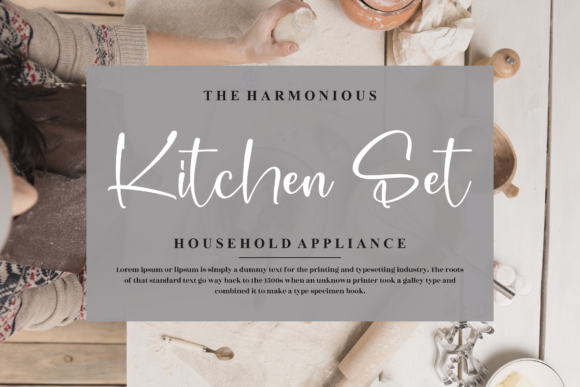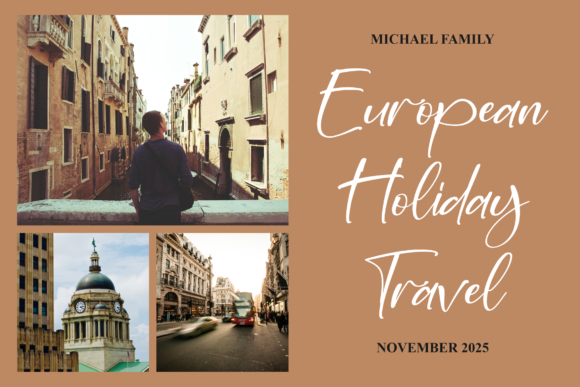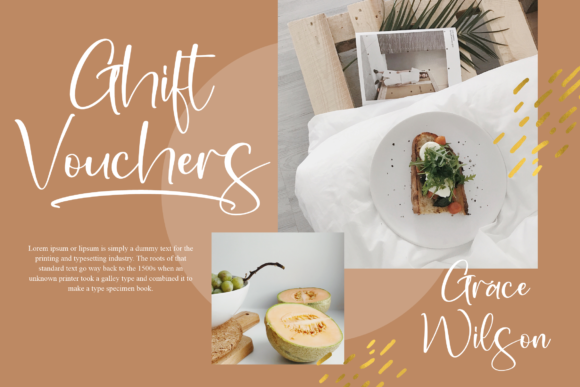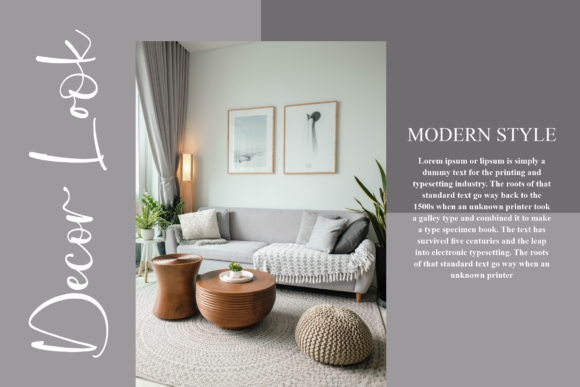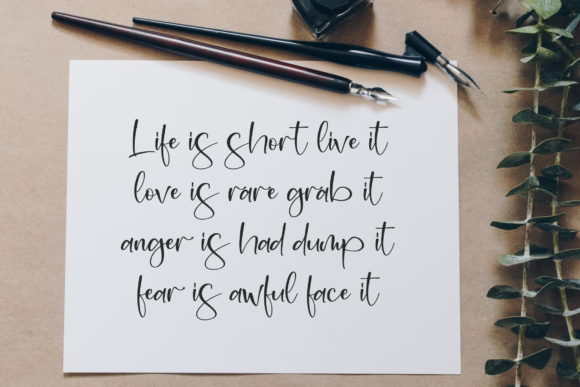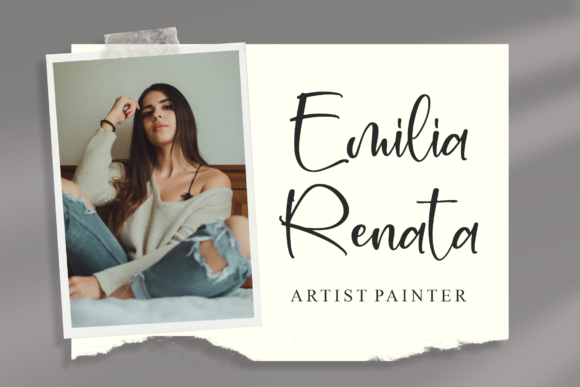
Introduction to Sacholla Font
Do you remember the thrill of stumbling upon the perfect font for your creative project? It’s that moment when all the pieces fall into place, and your design vision comes alive. For designers, finding the right font can be a game-changer, elevating your work from good to exceptional. That’s exactly what the Sacholla Font promises to deliver – a high-quality, elegant script font that’s perfect for a wide range of creative projects.
Whether you’re working on a branding project, designing product packaging, or creating a stunning poster, the Sacholla Font is an excellent design resource to have in your toolkit. And the best part? It’s available for free download, making it an accessible addition to your design arsenal. With its transparent background and PUA-encoded glyphs, you’ll have all the flexibility you need to bring your creative vision to life.
Key Features of Sacholla Font
- Unique, hand-drawn style with a transparent background, ideal for graphic designers and artists.
- Includes a range of font sizes and styles, from small to large, to suit various design needs.
- Designed to be highly legible and versatile, making it a valuable addition to any design resource library.
- Perfect for use in creative projects, such as logos, branding, and typography-based designs.
Honest Review: Sacholla Font
I recently had the chance to work with the Sacholla Font, and I must say it’s been a great addition to my design resource collection. This high-quality font is a perfect fit for any creative project that requires a touch of elegance and sophistication.
Here are some of the things that I really like about the Sacholla Font: ✨
- Wide range of glyphs and characters, making it perfect for writing and typing in various languages.
- Transparent background, allowing for seamless integration with any design or image.
- High-resolution images, ensuring that the font looks great even at larger sizes.
While the Sacholla Font is an excellent resource, I did encounter a few limitations: ⚠️
- Some of the characters may appear slightly distorted when resized or zoomed in.
Getting the Most Out of Sacholla Font
To get the most out of the Sacholla Font, experiment with different font sizes, colors, and styles. This font is particularly useful for creating eye-catching headings and titles. Additionally, use the transparent background feature to create a seamless design experience.
The Sacholla Font is commonly used in creative projects such as branding, packaging, and advertising. Its unique design and high-quality features make it an excellent choice for designers seeking a distinctive look.